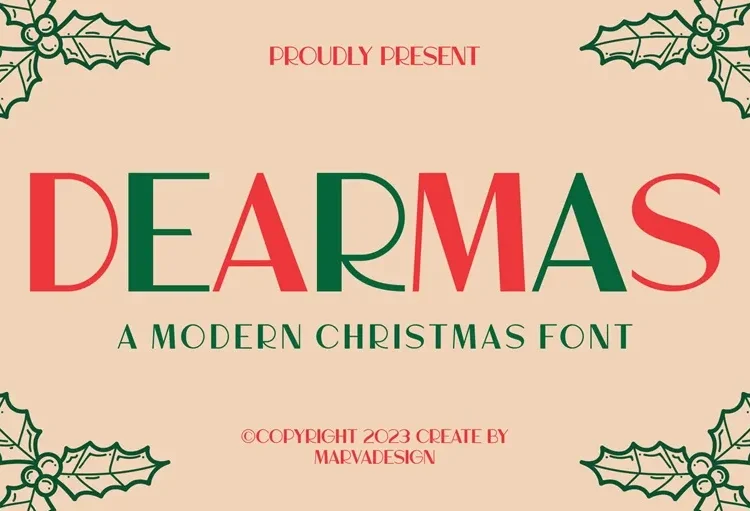
Dearmas Font
Dearmas is a charming display sans serif font designed to capture the spirit of Christmas. With its authentic holiday-inspired design, this font brings warmth and festivity to any creative project. Whether you’re working on logos, templates, product packaging, or seasonal branding, Dearmas adds a cheerful and stylish touch.
Perfect for a wide range of applications, from holiday promotions to festive invitations, this font ensures a joyful and eye-catching appearance. Its versatile and modern style makes it a great choice for both digital and print designs.